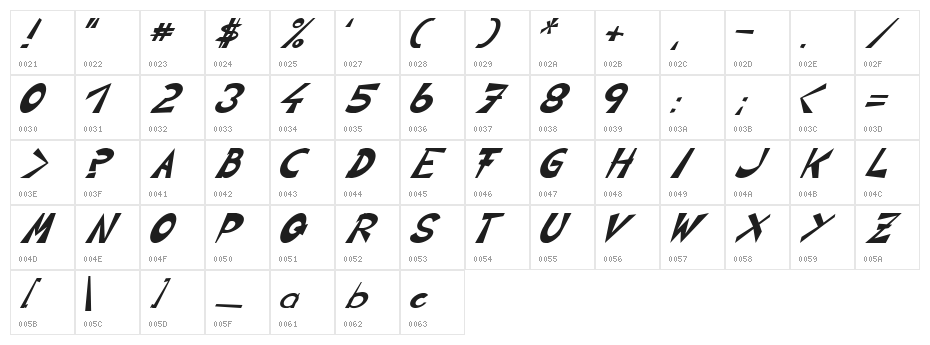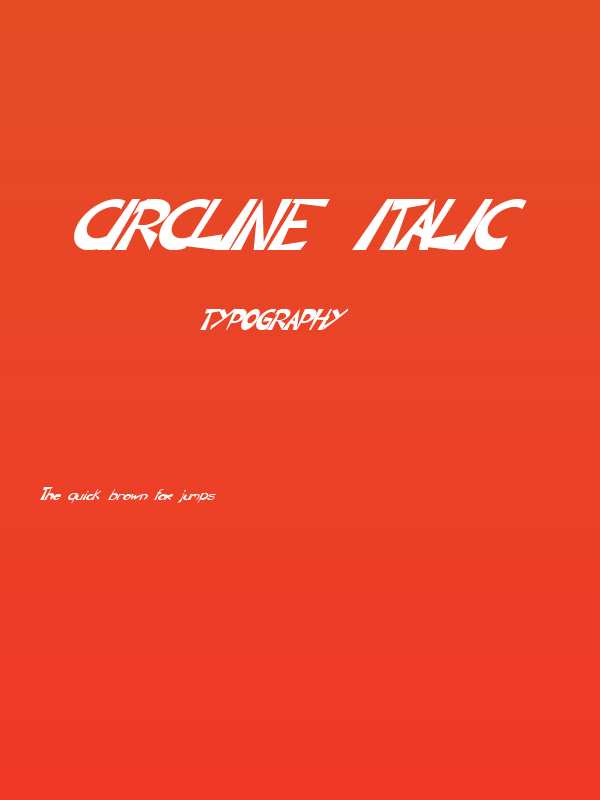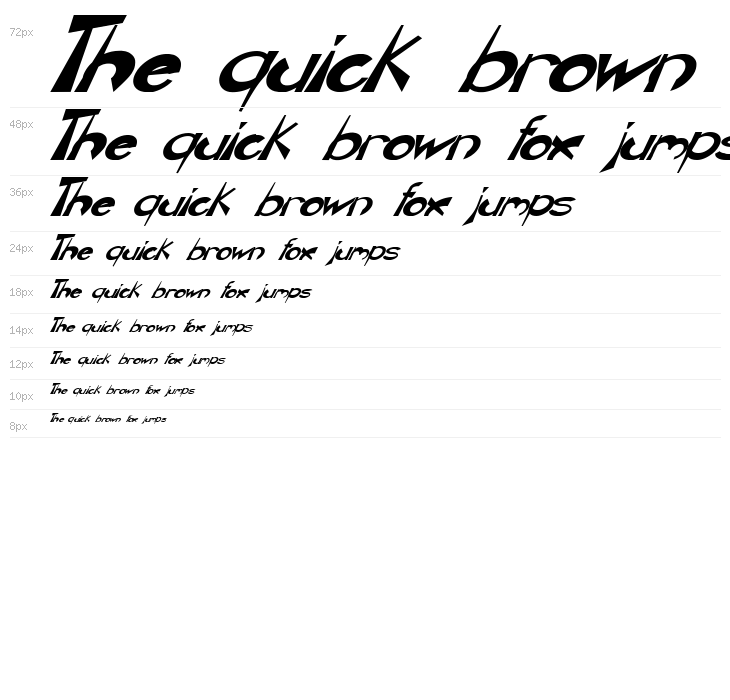
CIRCLINE Italic Font
CIRCLINE Italic Description
This dynamic and energetic font features a bold and italicized style with sharp, angular edges and a sense of forward motion. The uppercase and lowercase letters maintain a consistent slant, giving the text a sense of speed and urgency. The numbers and special characters follow the same design principles, ensuring uniformity across all characters. The font's thick strokes and high contrast between thick and thin lines make it highly legible while maintaining a distinctive appearance. Its modern and edgy style is perfect for projects that require a bold statement.
| Proposed Projects | Ideal for sports branding, dynamic posters, modern advertisements, and edgy graphic design projects. |